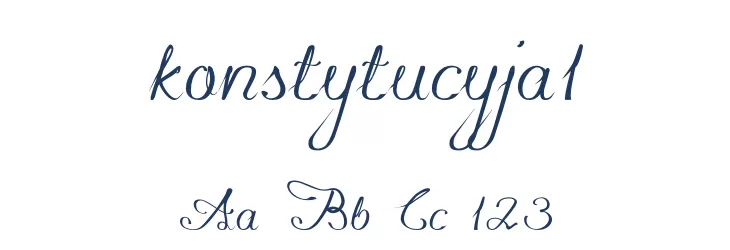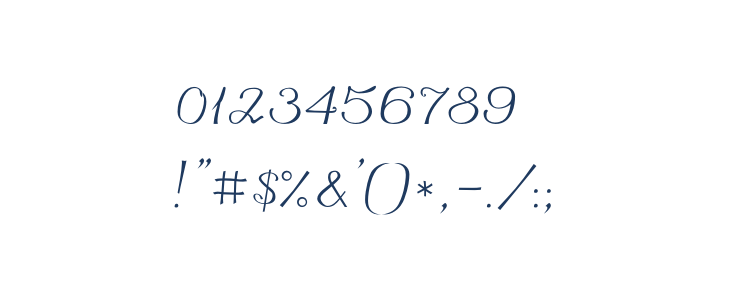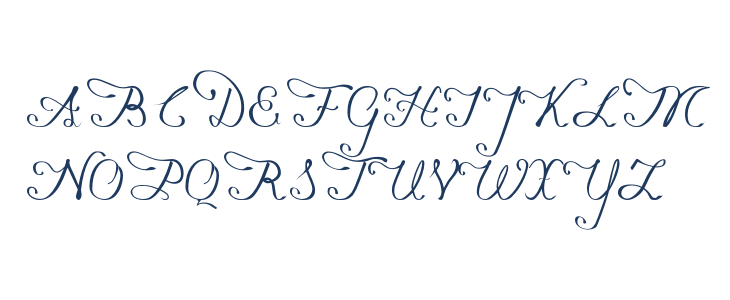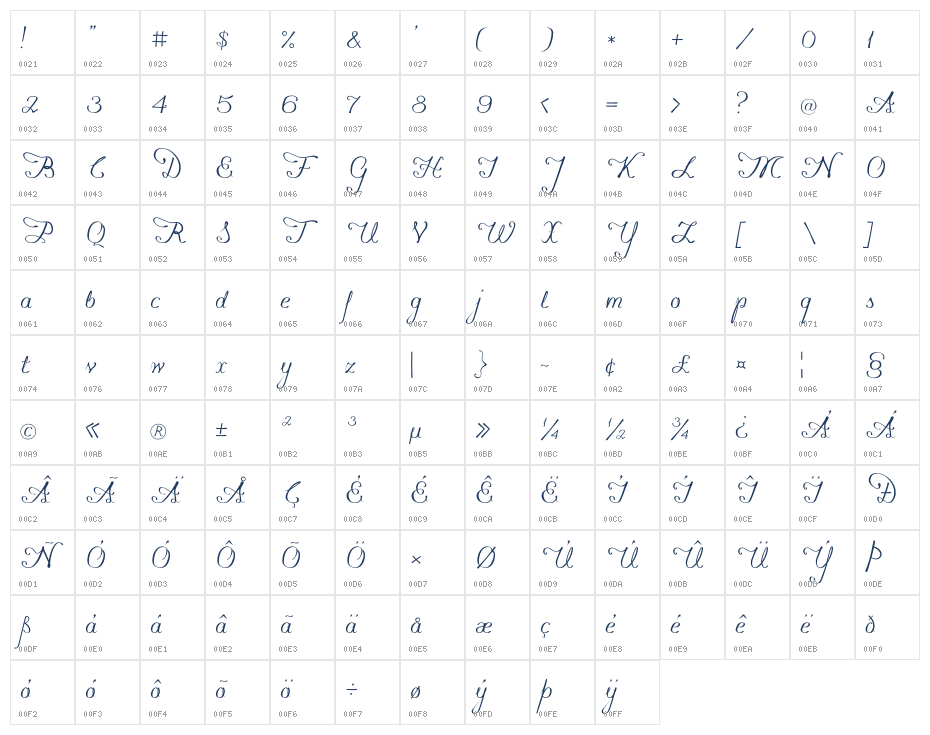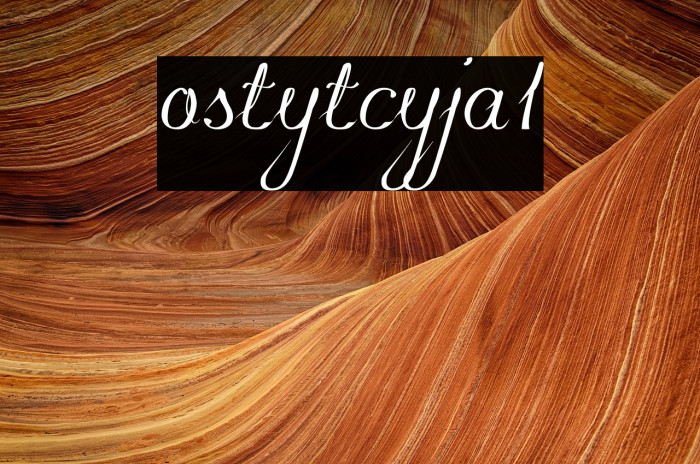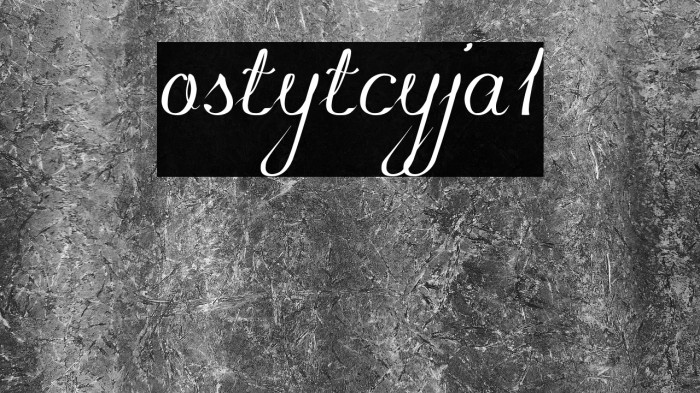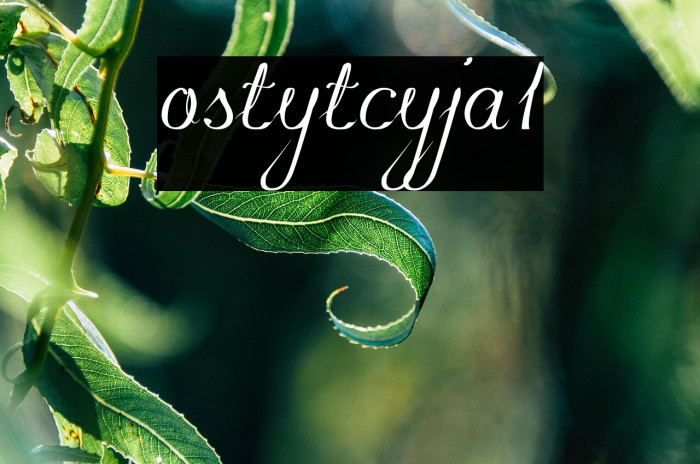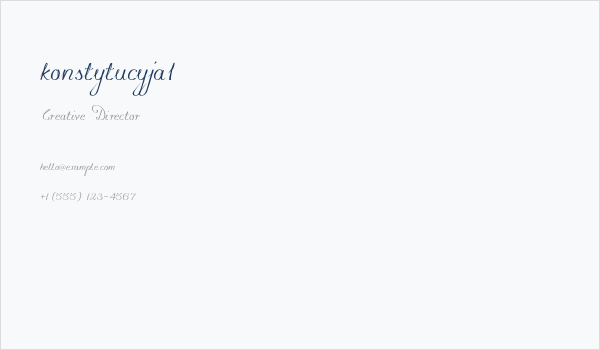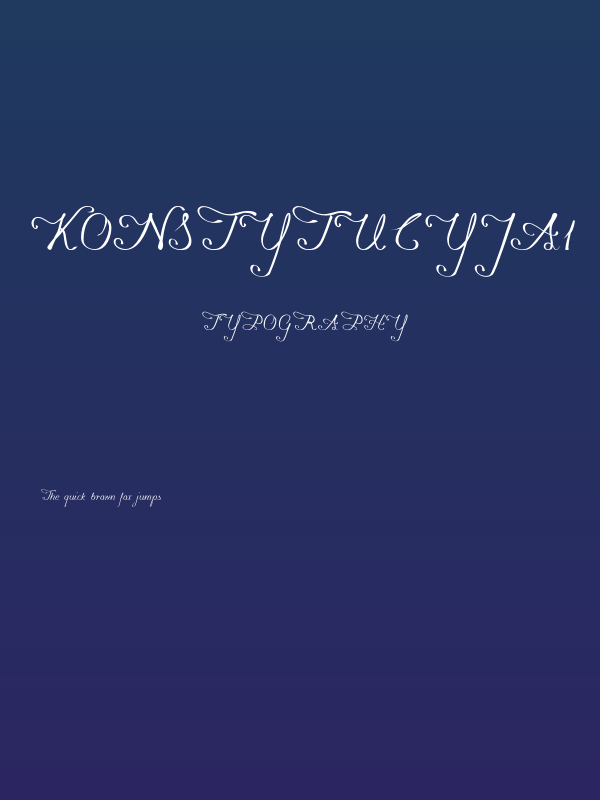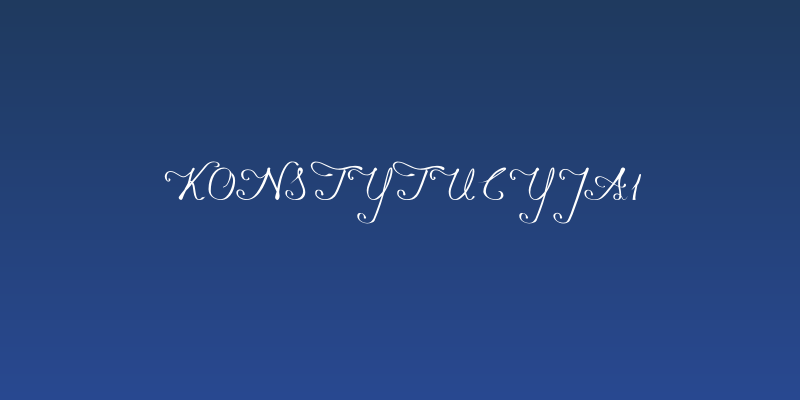
konstytucyja1 Font
This font is inspired by Polish-Lithuanian Constitution of 3 Mai 1791 and is released to the Public Domain. Created by gluk (gluksza@wp.pl) with PfaEdit/Fontforge. Use two comma at end of your words for 'fina' glyphs: a,aogonek,c,cacute,d,e,eogonek,g,h,i,j,k,l,lslash,m,n,t,u,x,y,z,zdot,zacute.